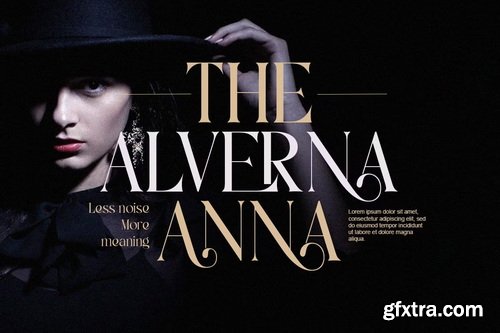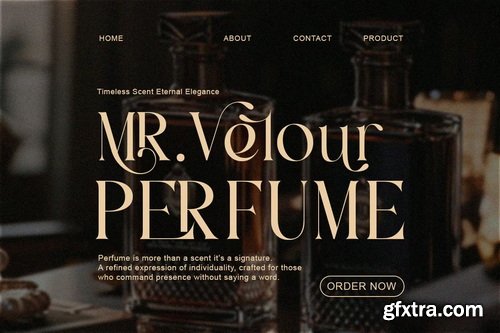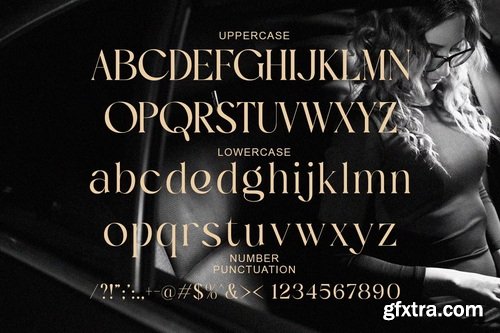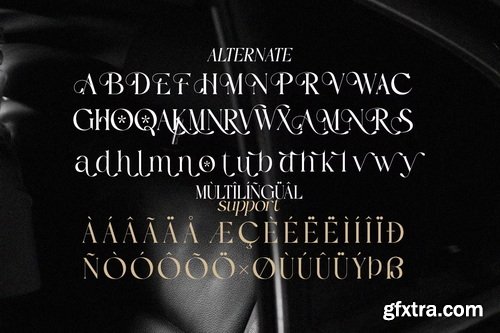
- Introducing Glisora – a modern luxury serif font infused with fashion elegance and premium sophistication. With its sleek curves, refined weight contrast, and unique flourishes, Glisora was crafted for high-end visuals that need both style and authority. It exudes elegance from every serif stroke.
- Ideal for designers aiming to create premium branding, editorial finesse, or visual storytelling with character.
- Whether it’s a fashion label, beauty product, portfolio cover, or formal invitation, Glisora brings a commanding presence with luxury written all over it.